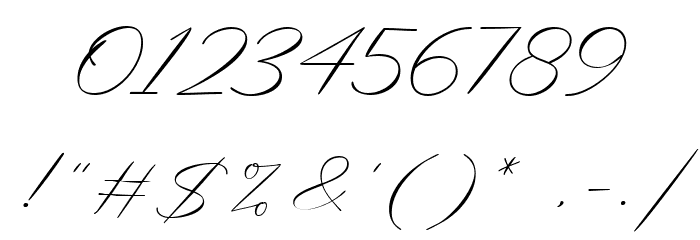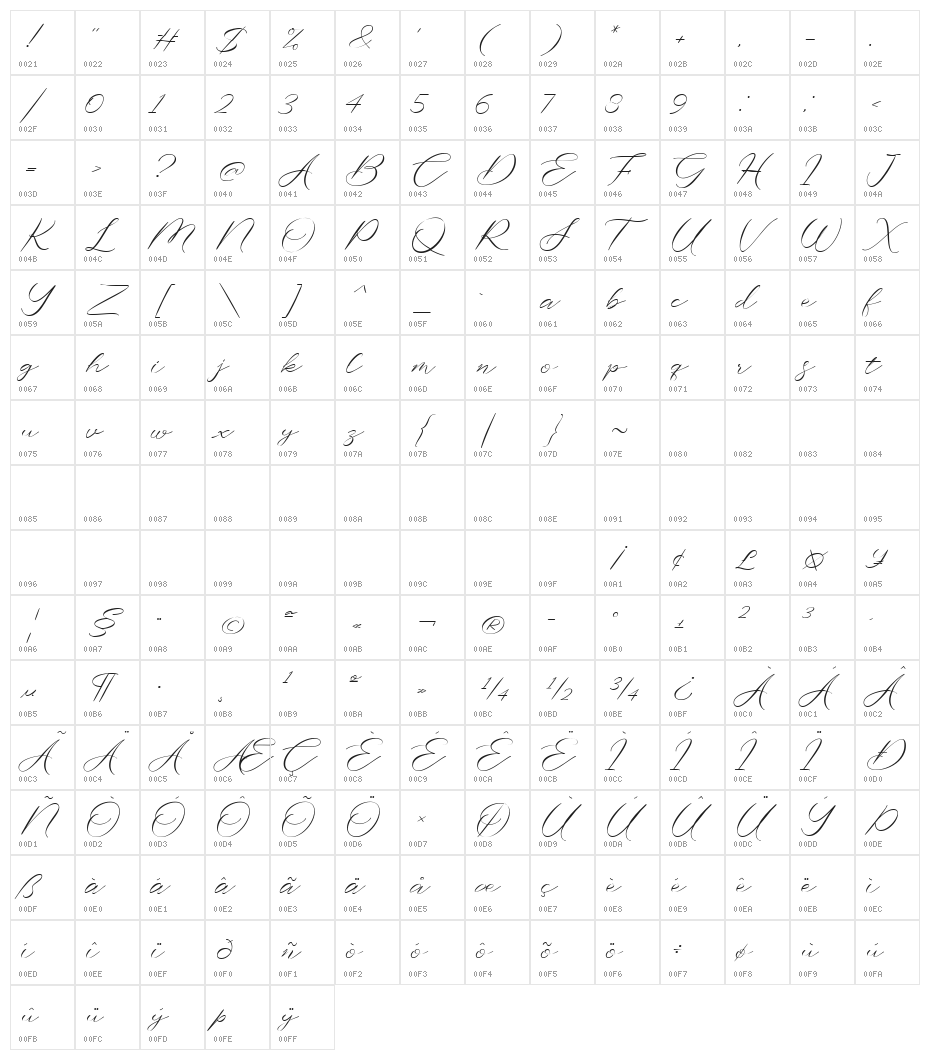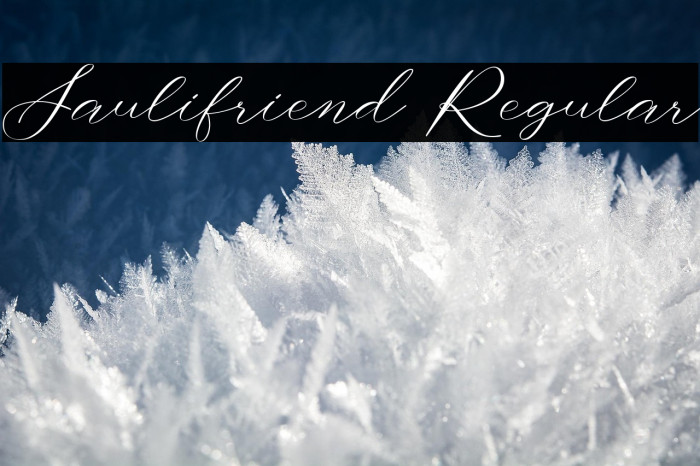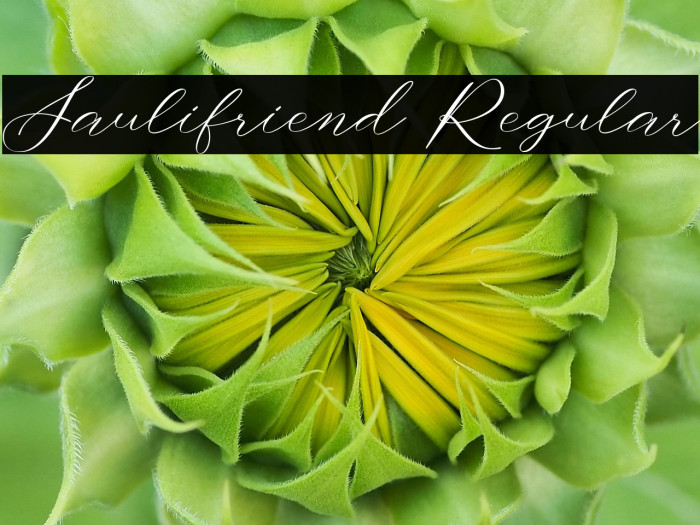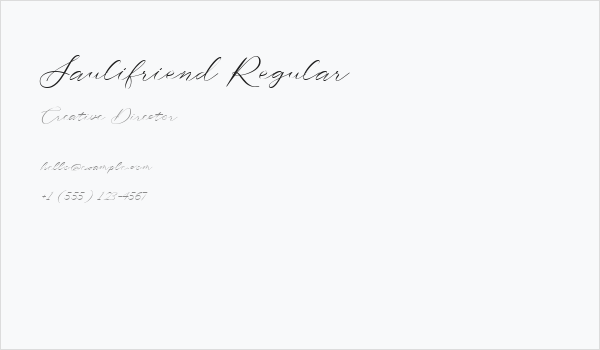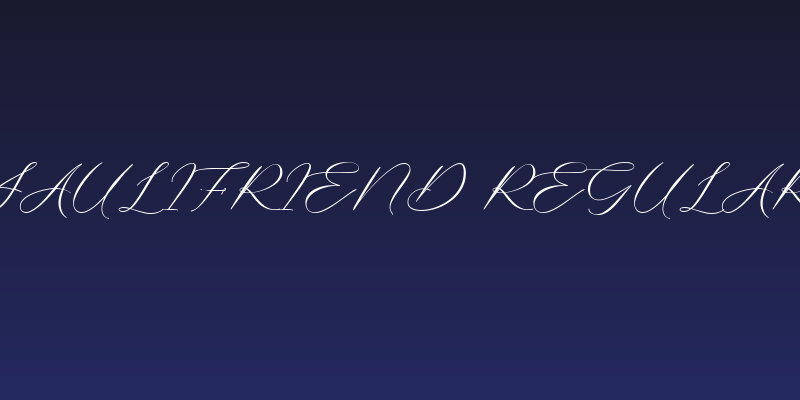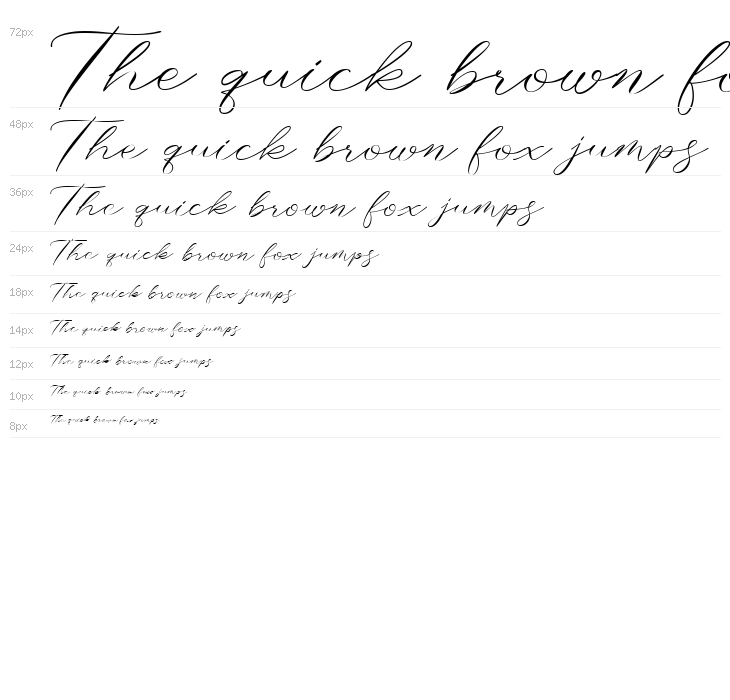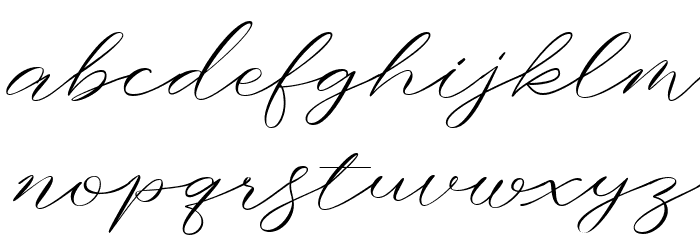
Saulifriend Regular Font
Saulifriend Regular Description
This elegant script font features a fluid and graceful design, characterized by its smooth, flowing lines and delicate curves. The letters are connected in a cursive style, giving it a handwritten appearance that is both sophisticated and approachable. The uppercase letters are slightly more ornate, with subtle flourishes that enhance their visual appeal, while the lowercase letters maintain a consistent rhythm and balance. The numerals are clear and legible, complementing the overall aesthetic. Special characters are thoughtfully integrated, maintaining the font's cohesive look. This font exudes a sense of elegance and refinement, making it suitable for a variety of creative applications.